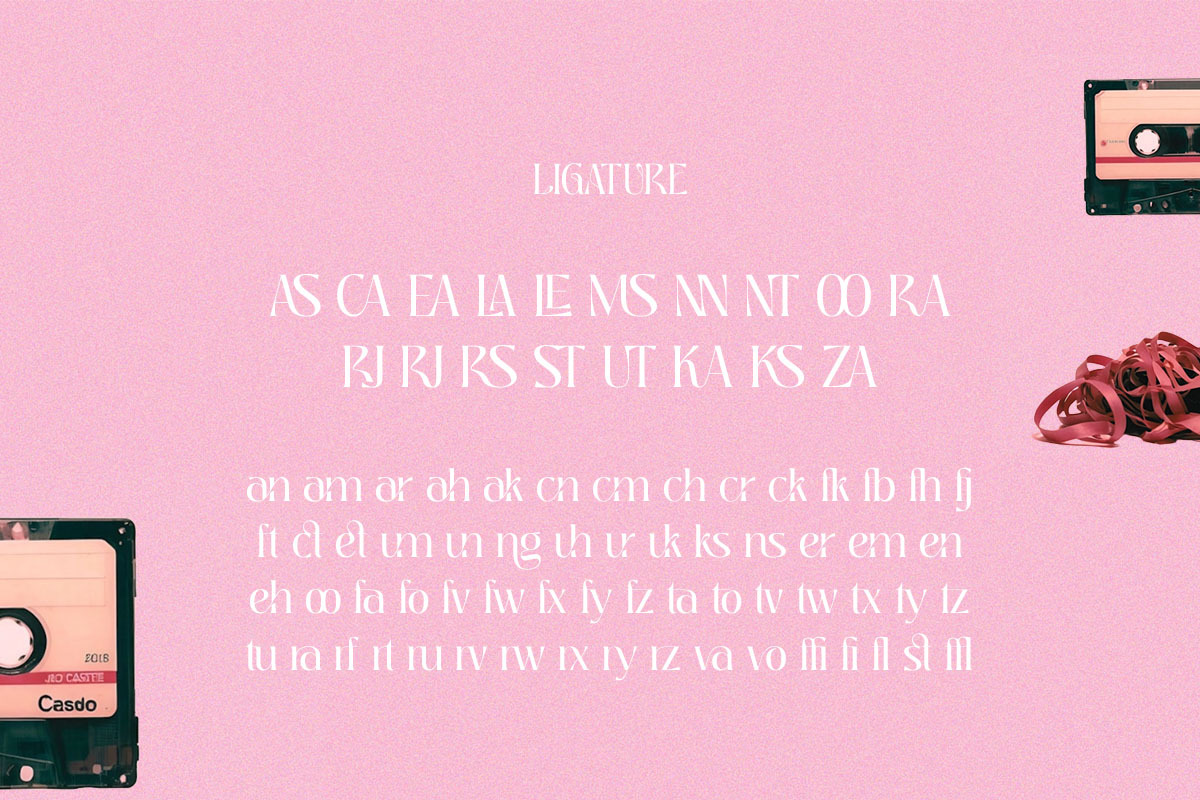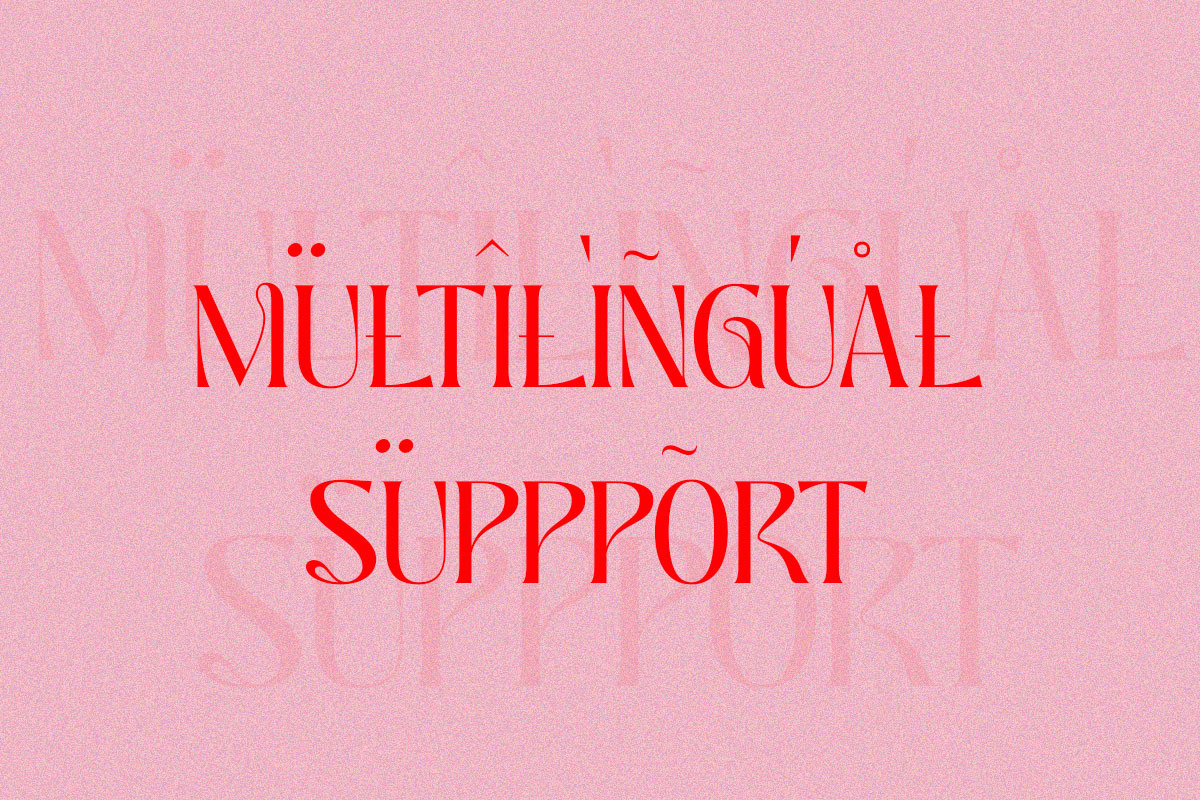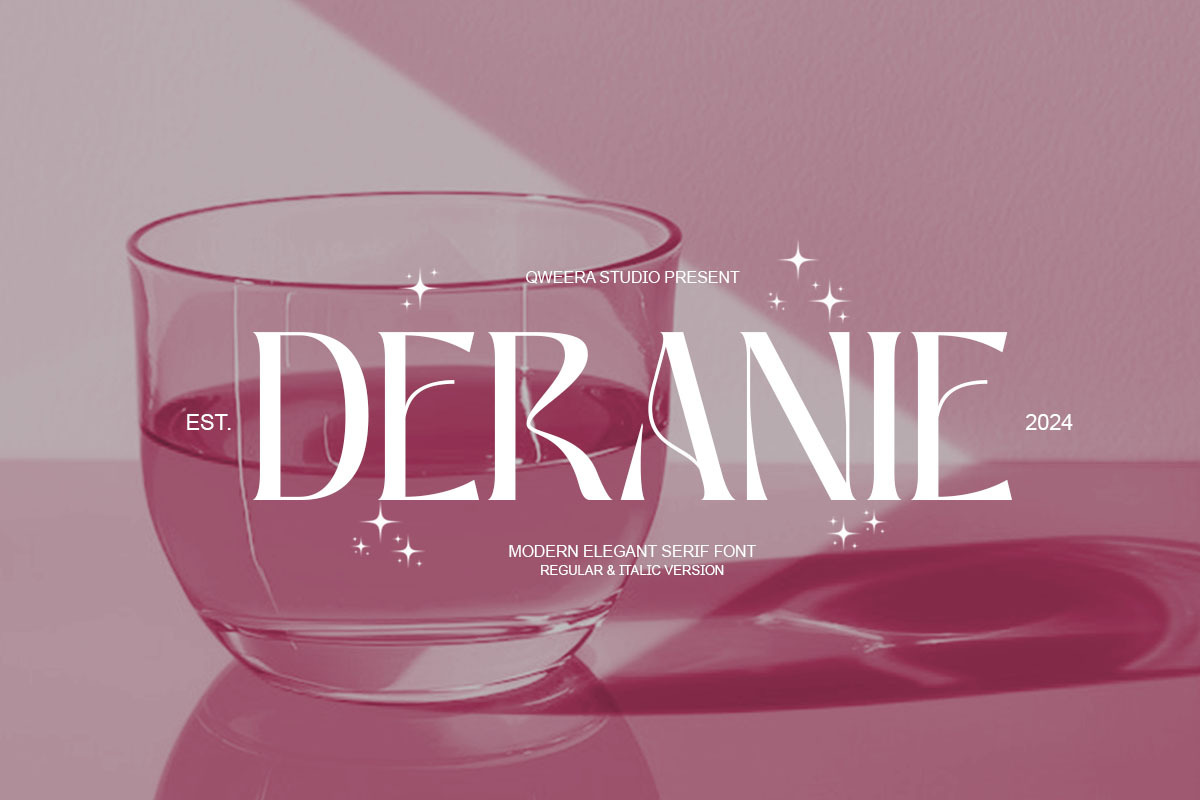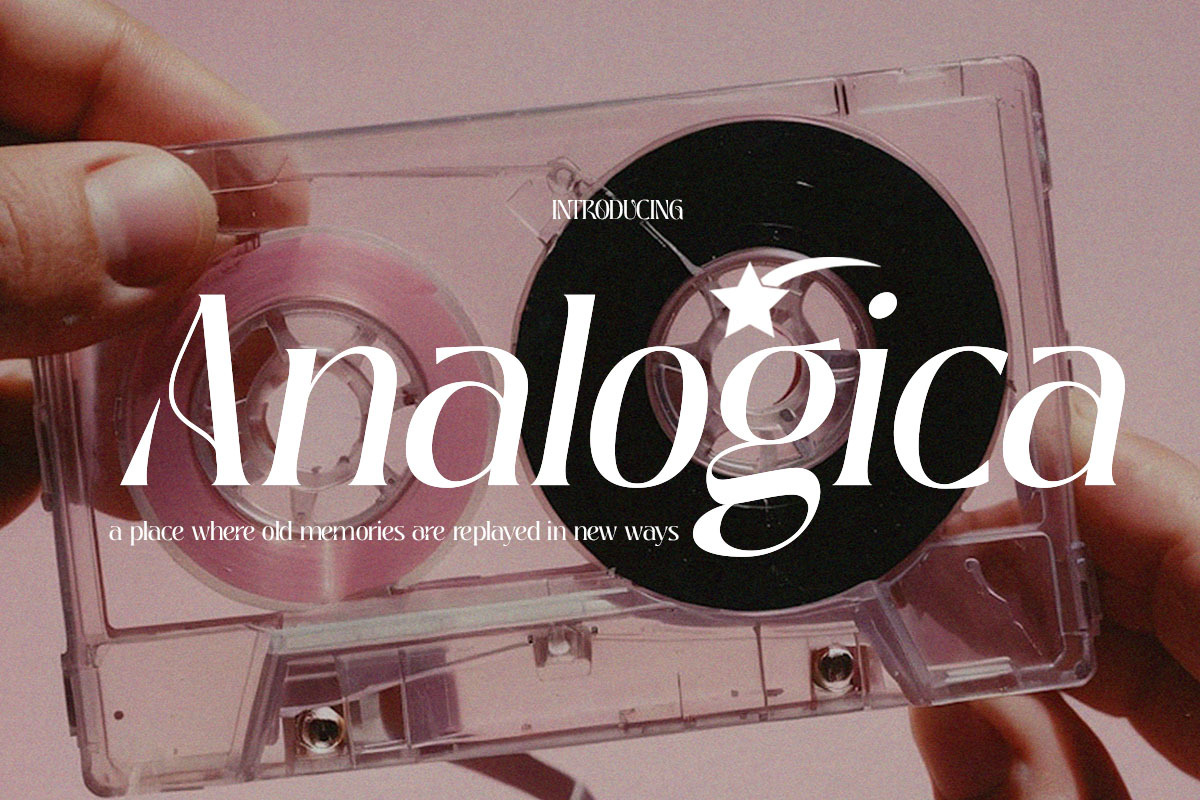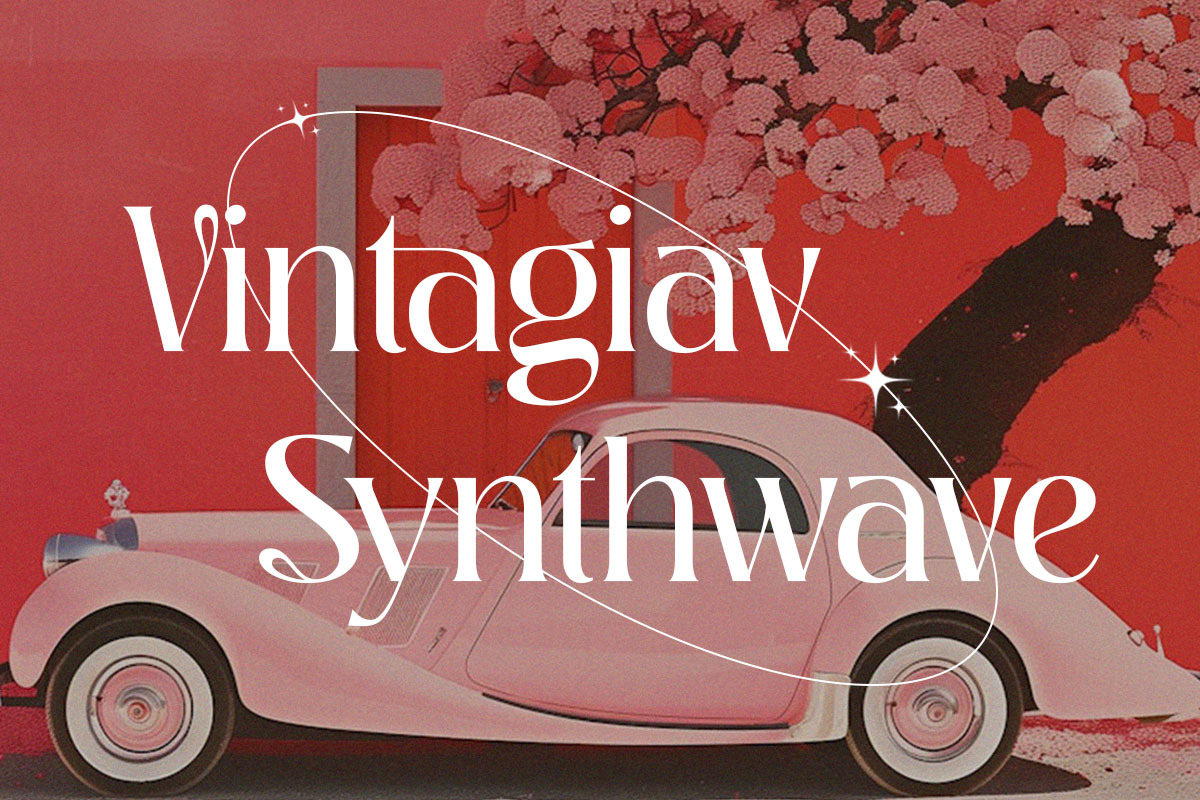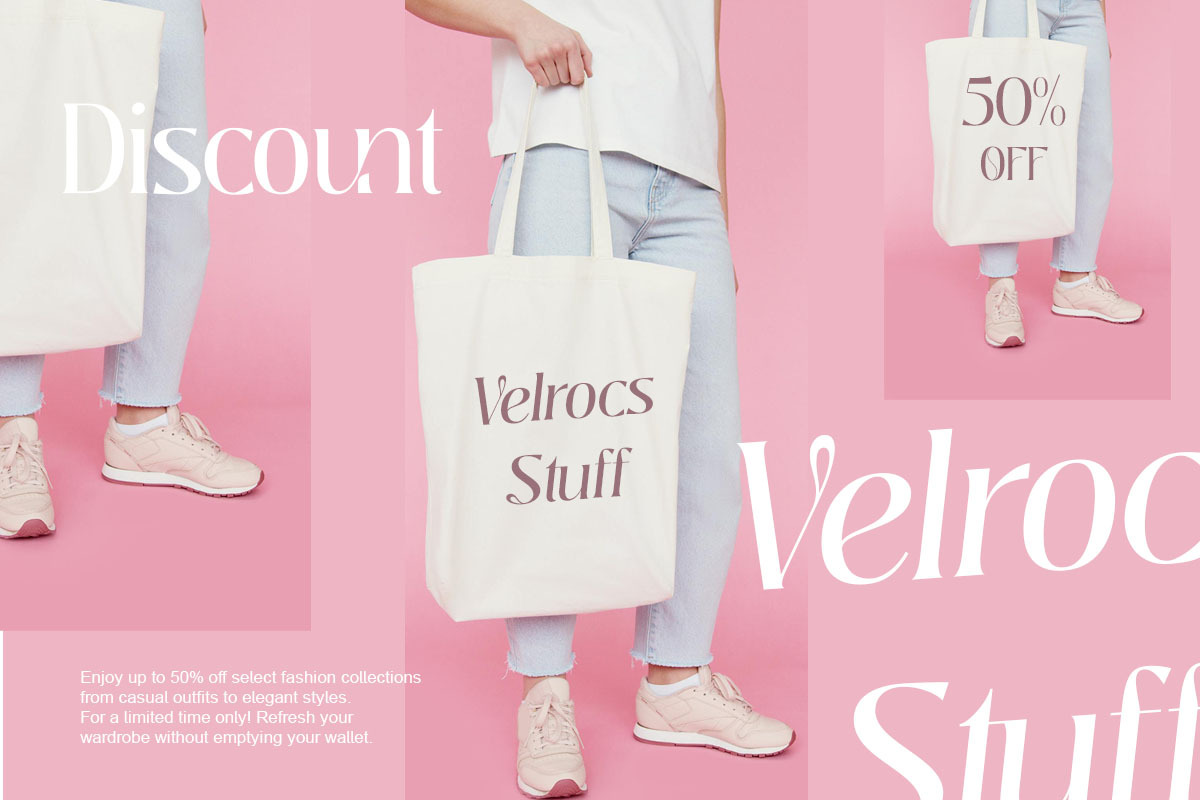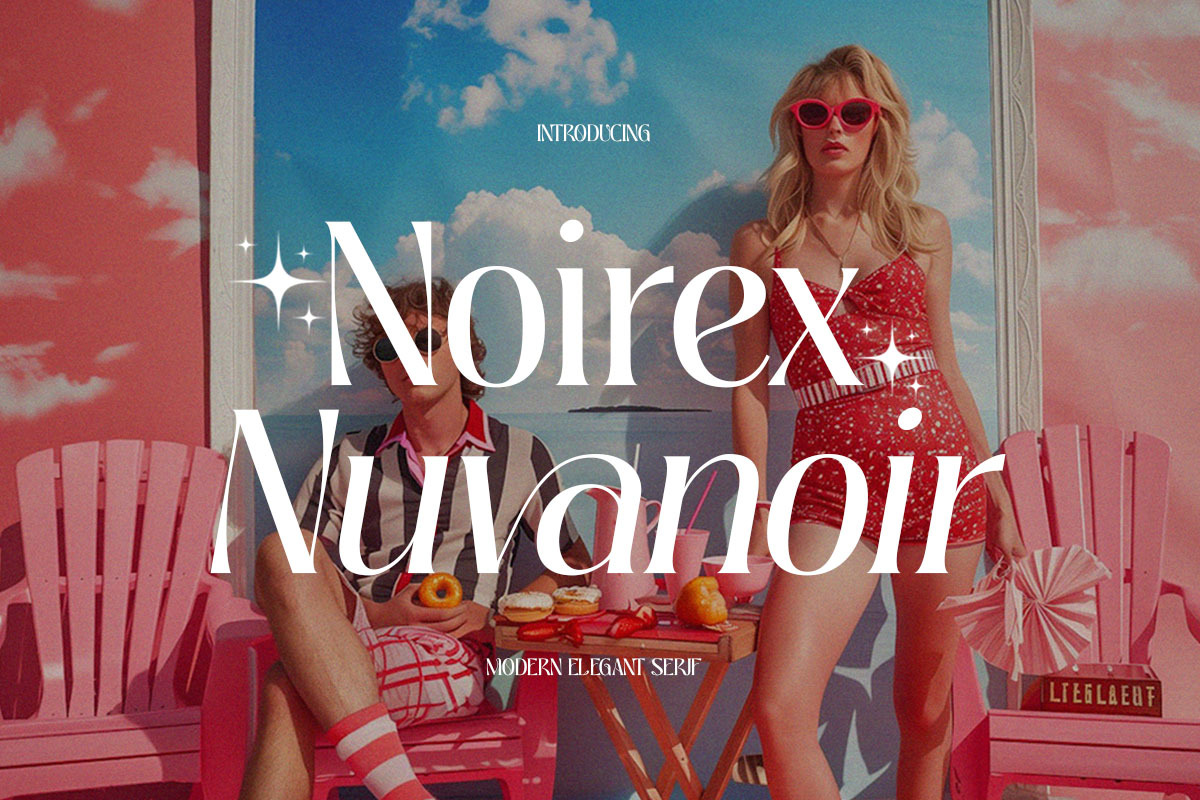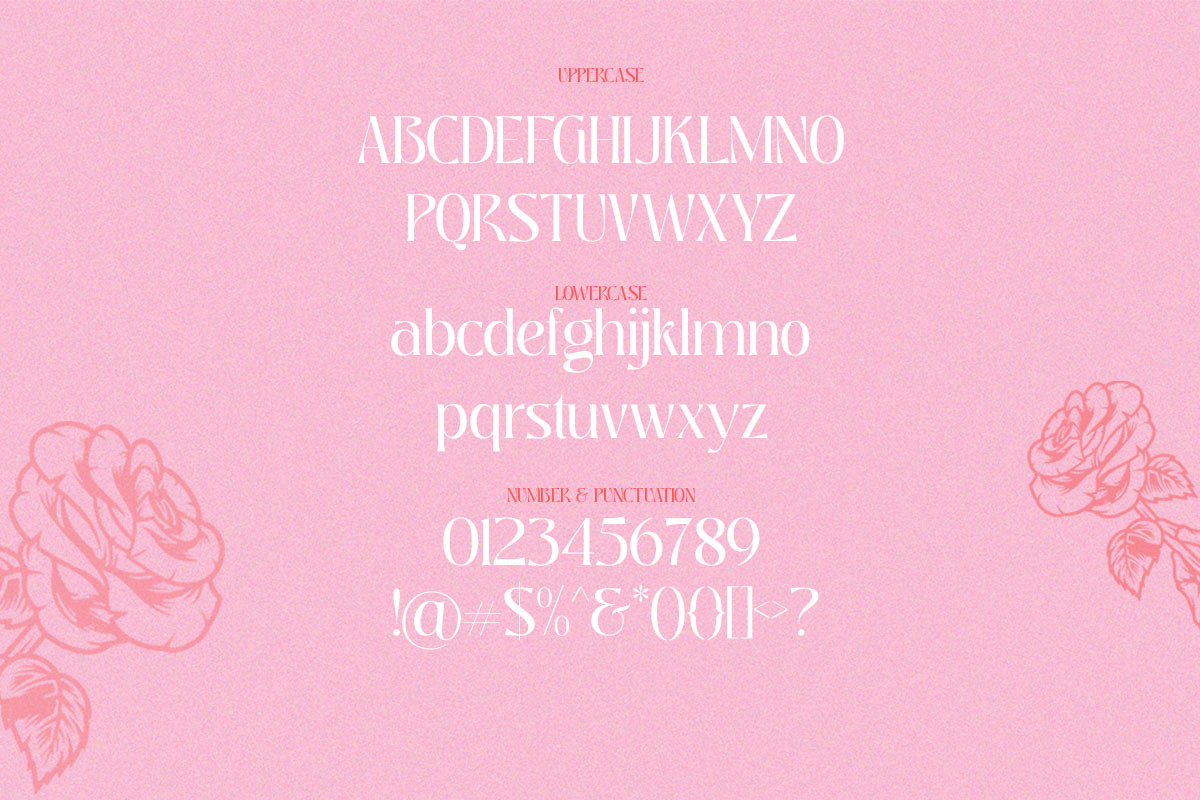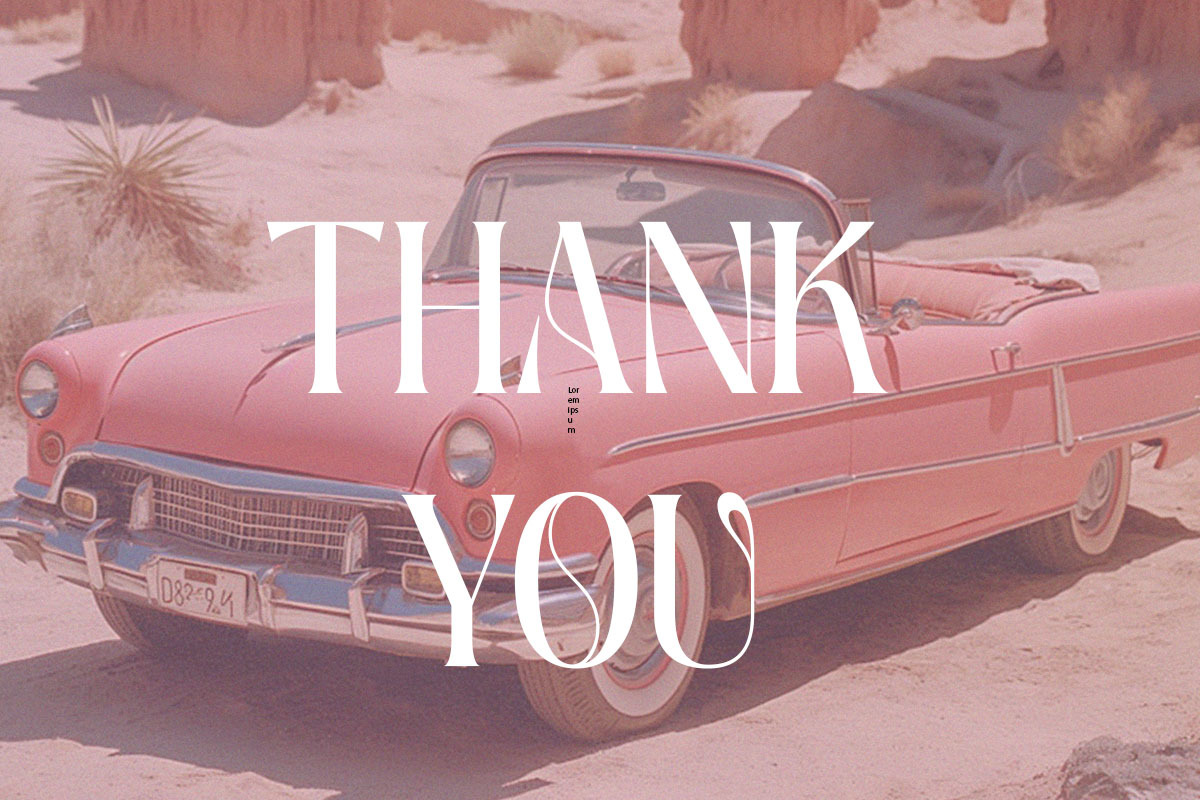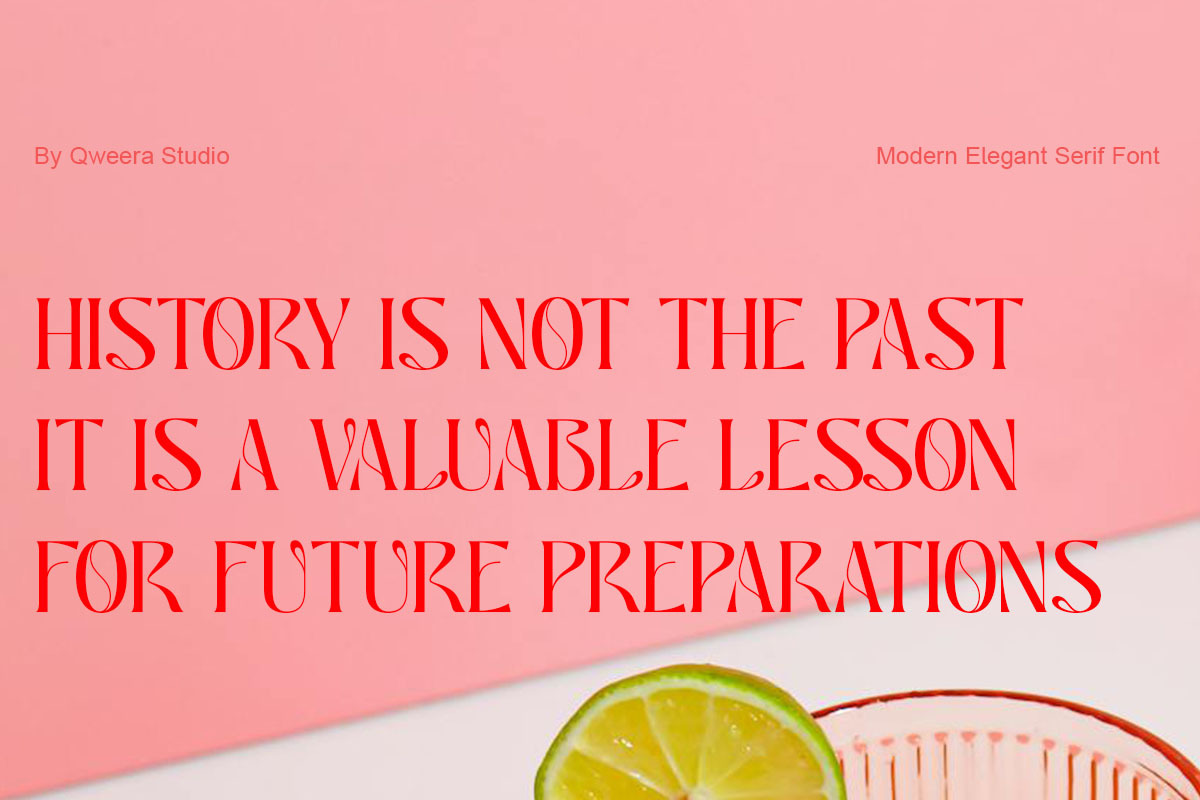
Deranie - Modern Elegant Serif Font
Deranie - Modern Elegant Serif Font for Sophisticated Branding
Deranie is a refined serif typeface that blends contemporary elegance with timeless sophistication. Featuring both Regular and Italic styles with exquisite stylistic ligatures and alternates, this font is meticulously crafted for premium branding, luxury logos, high-end packaging, and editorial designs that demand both beauty and functionality.
Where Modern Minimalism Meets Classic Elegance
With its clean lines and graceful curves, Deranie delivers exceptional versatility for brands seeking both refinement and impact. The carefully designed ligatures and alternates enable seamless typographic harmony, perfect for creating distinctive visual identities.
Premium Features Include:
- Elegant Serif Design – Balanced letterforms with refined details
- Dual Style Versions – Regular & italic for dynamic applications
- Stylistic Ligatures – 20+ seamless letter combinations
- Sophisticated Alternates – Customizable character variations
- Universal Compatibility – From business cards to billboards
- Extended Latin Support – Comprehensive character set
Elevate Your Brand with Deranie's Timeless Grace Ideal for:
- Luxury fashion branding
- Premium cosmetic packaging
- High-end editorial design
- Sophisticated logo creation
- Elegant stationery suites